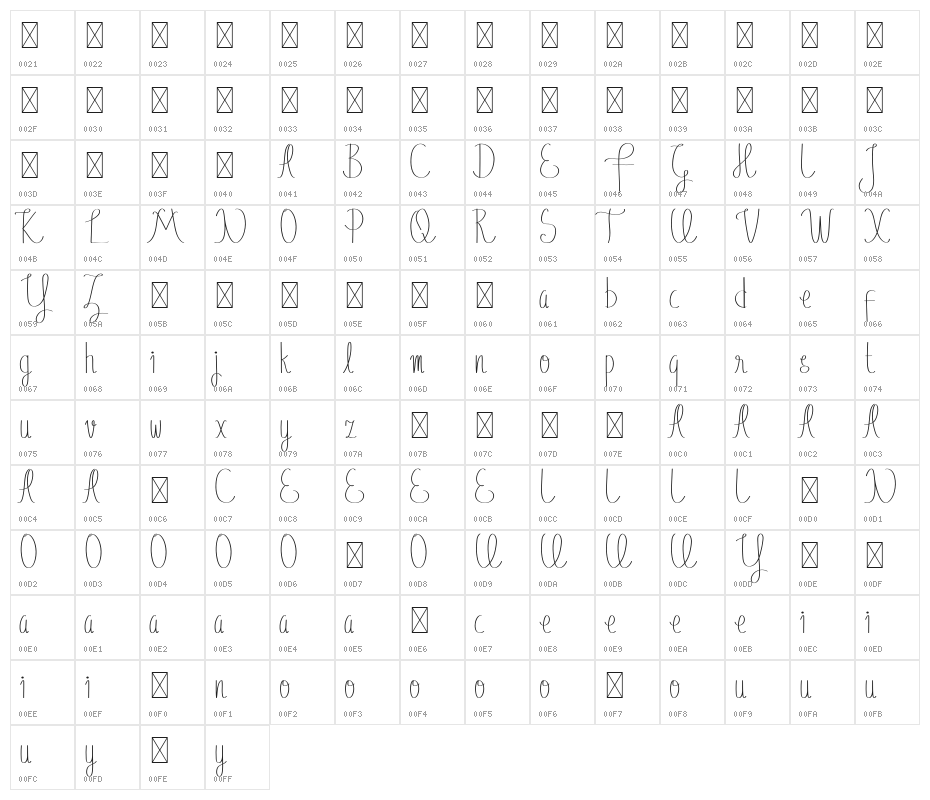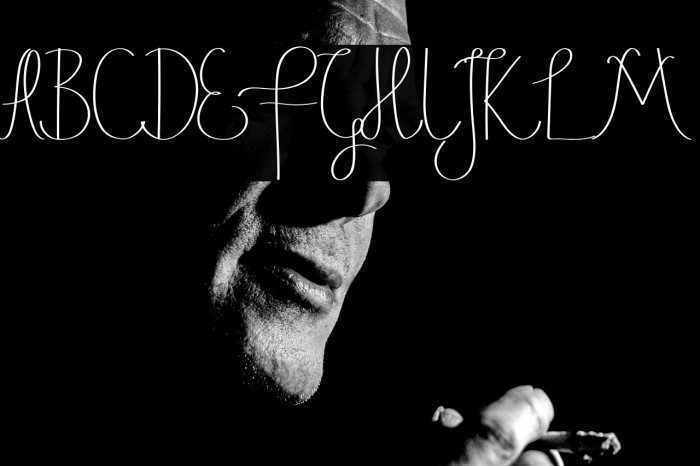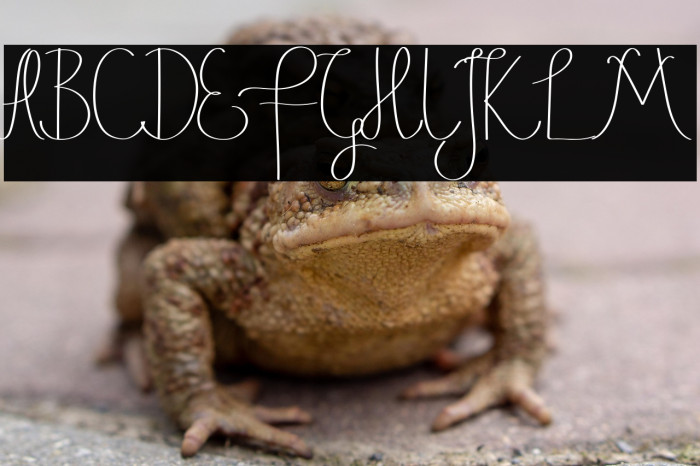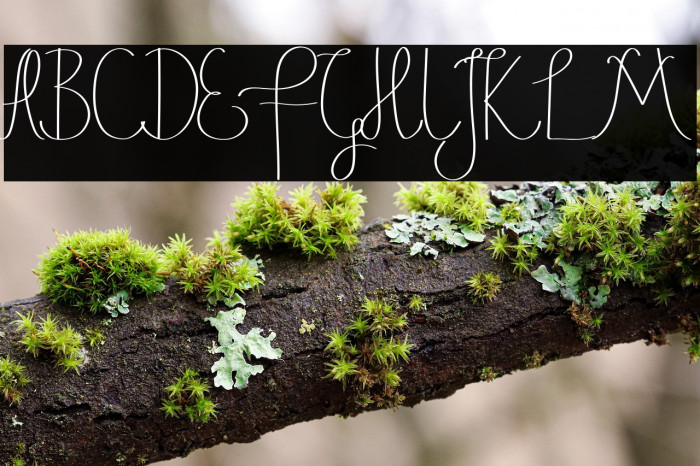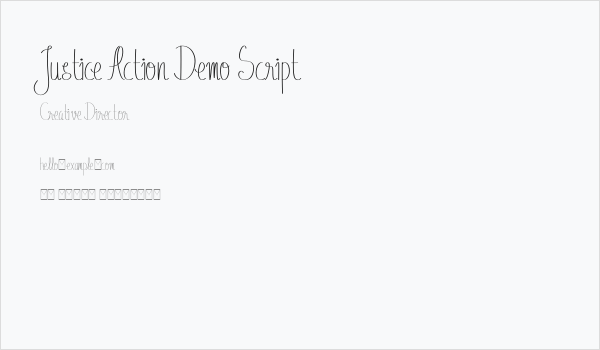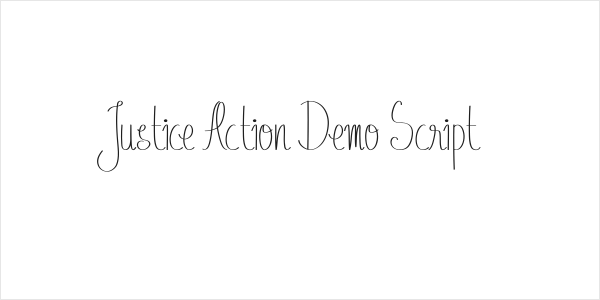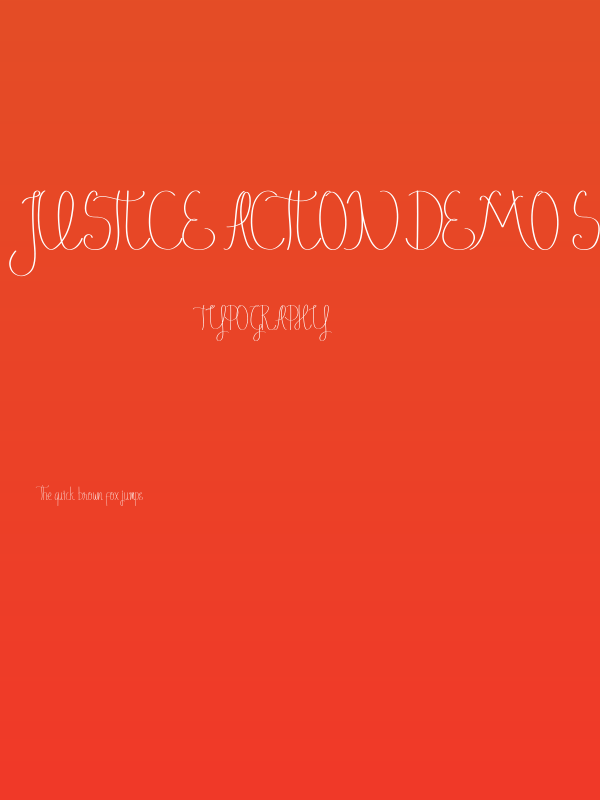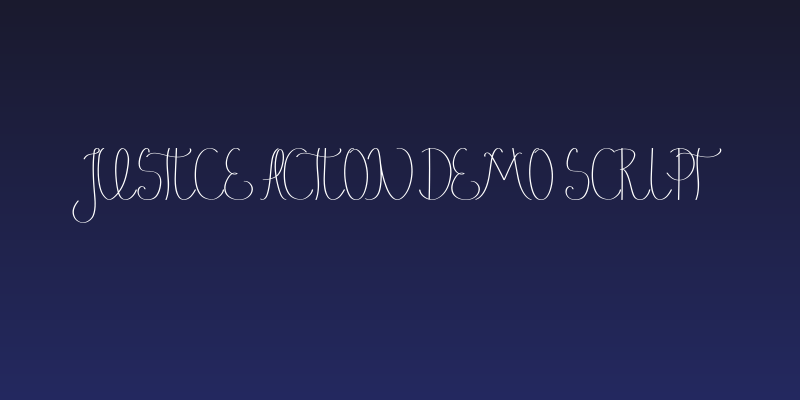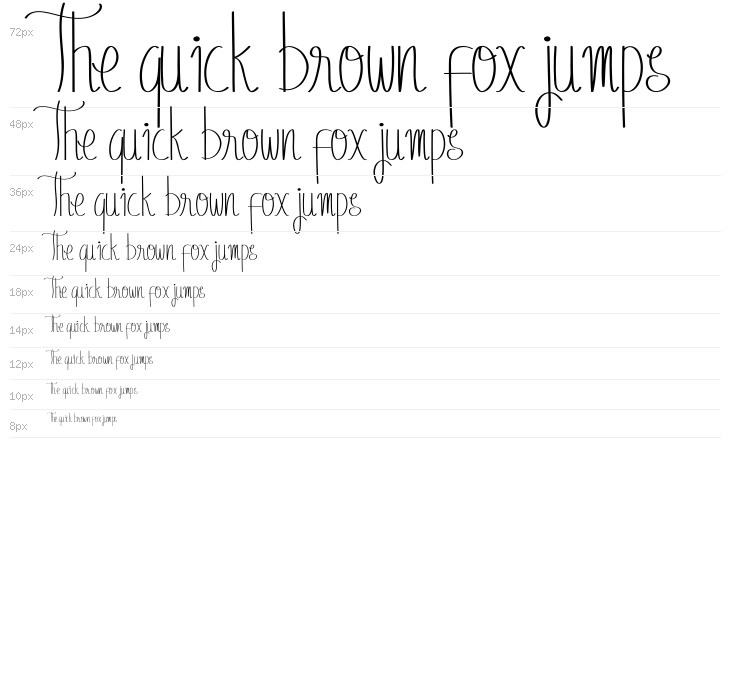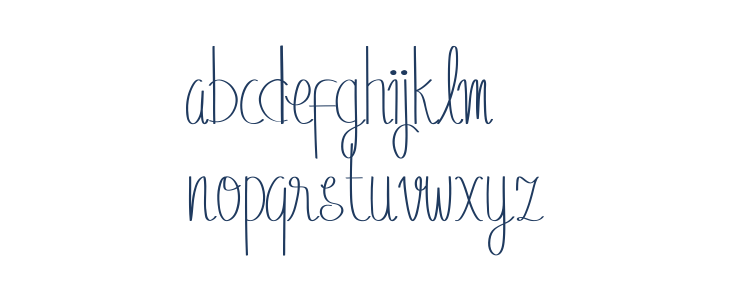
Justice Action Demo Script Font
Justice Action Demo Script Description
This font features a whimsical and flowing script style, characterized by its elegant and elongated letterforms. The uppercase letters are tall and slender, with a playful loop and curl design that adds a touch of sophistication. The lowercase letters maintain a consistent style, with smooth curves and a slightly informal appearance that enhances its charm. The font's overall aesthetic is both artistic and approachable, making it suitable for creative and decorative applications. The absence of numbers and special characters suggests a focus on artistic expression rather than functional text.
| Use Case | Logos, Invitations, Decorative text |
| Proposed Projects | Ideal for wedding invitations, greeting cards, artistic branding, and decorative signage. |